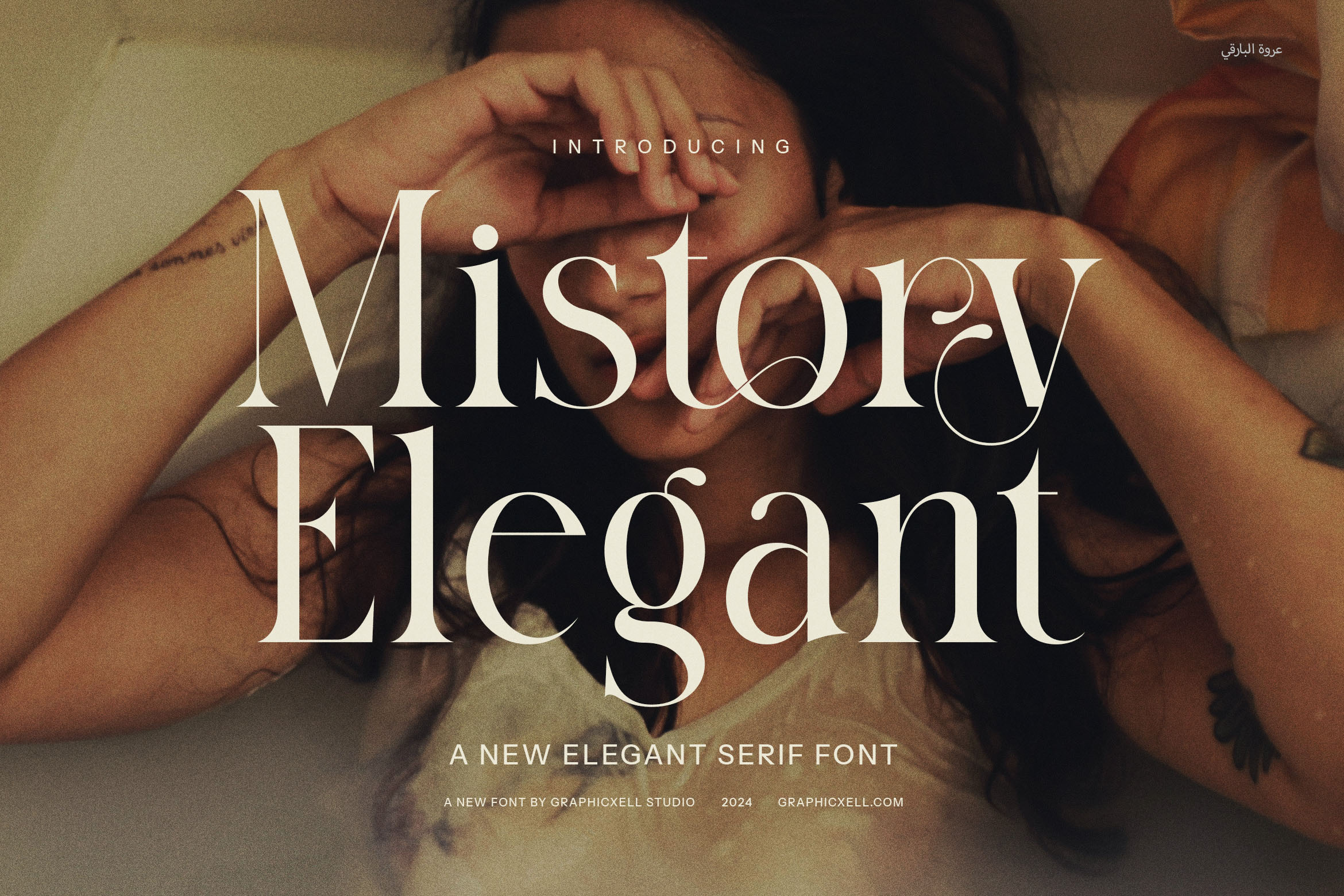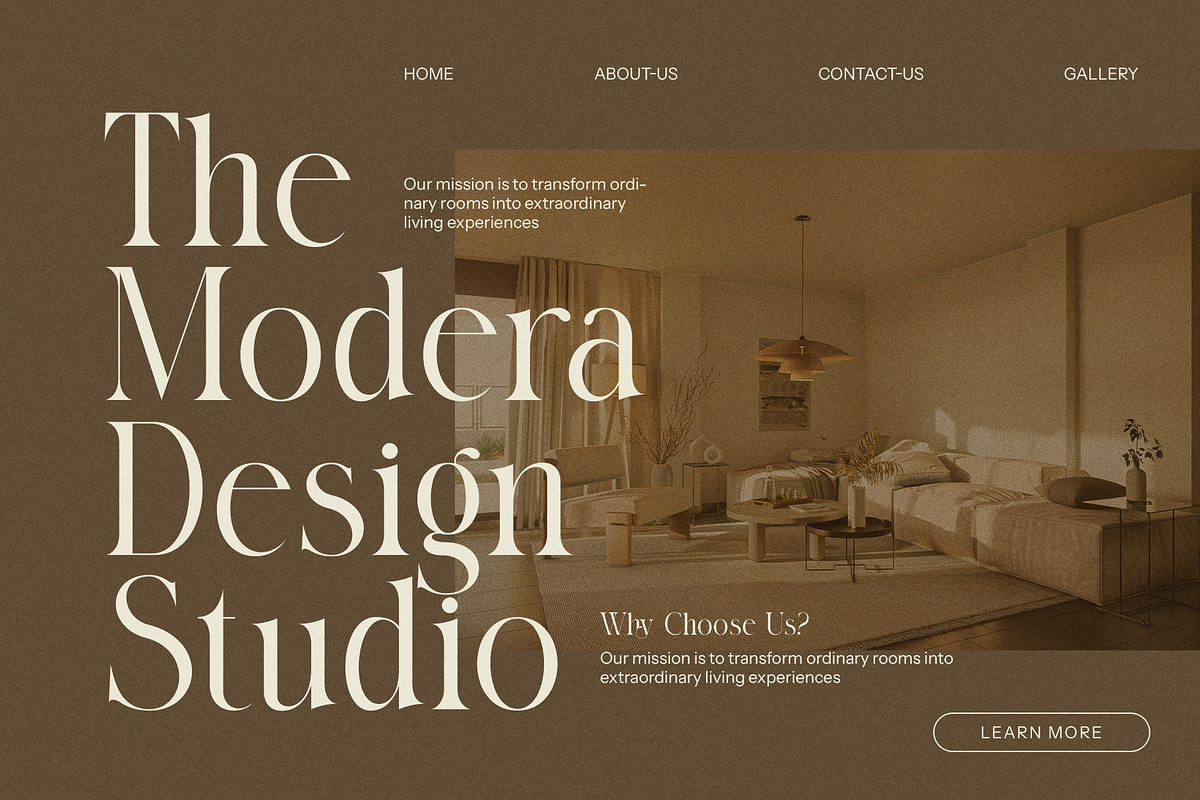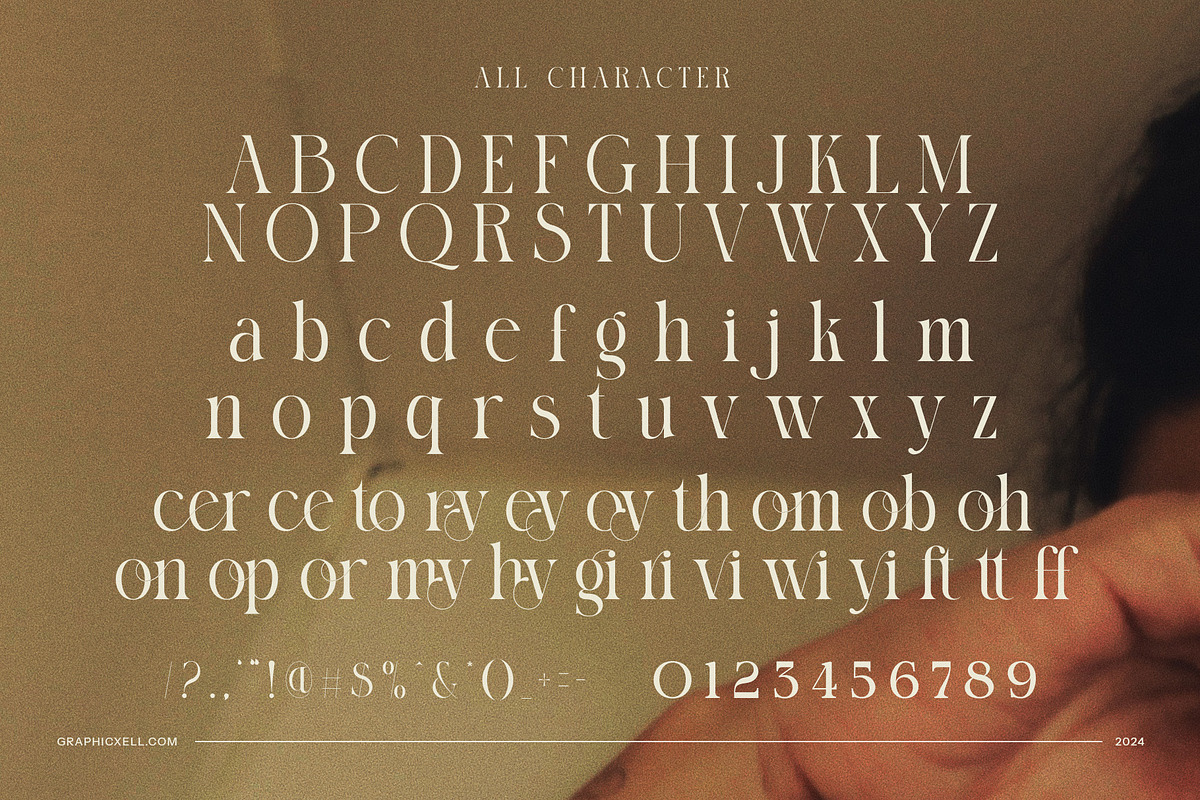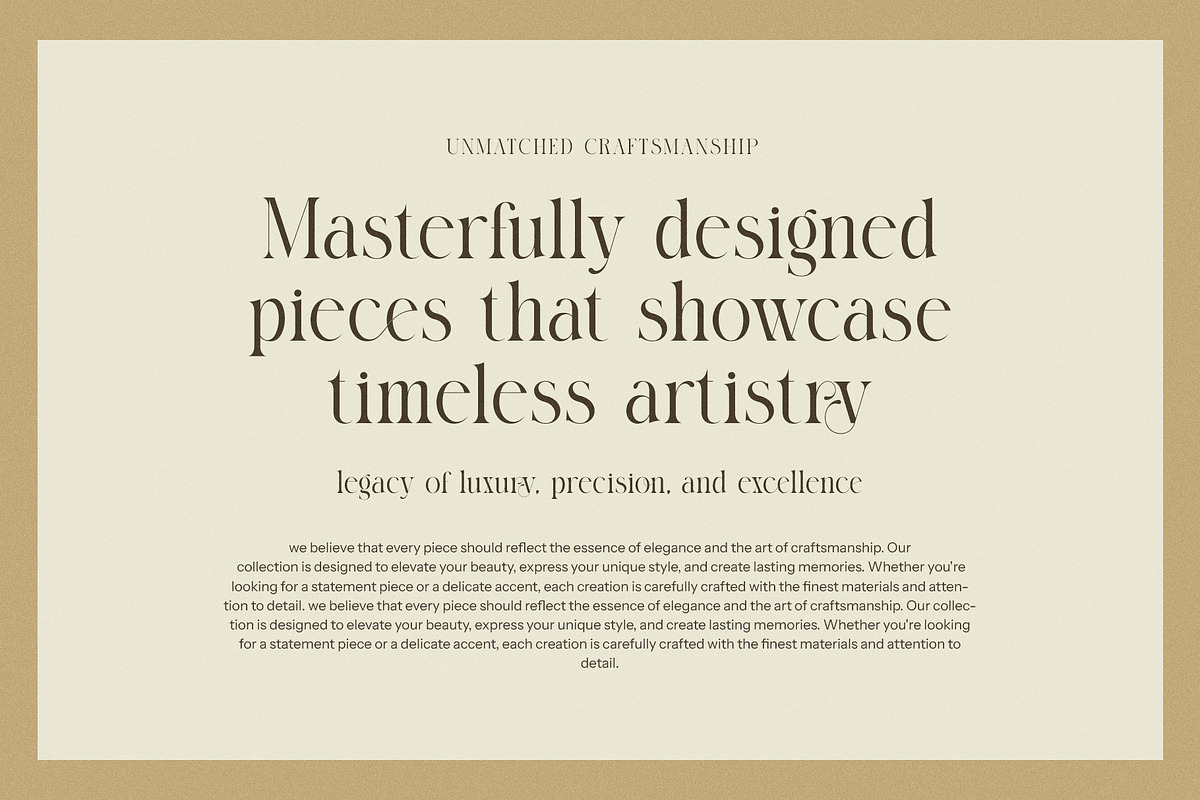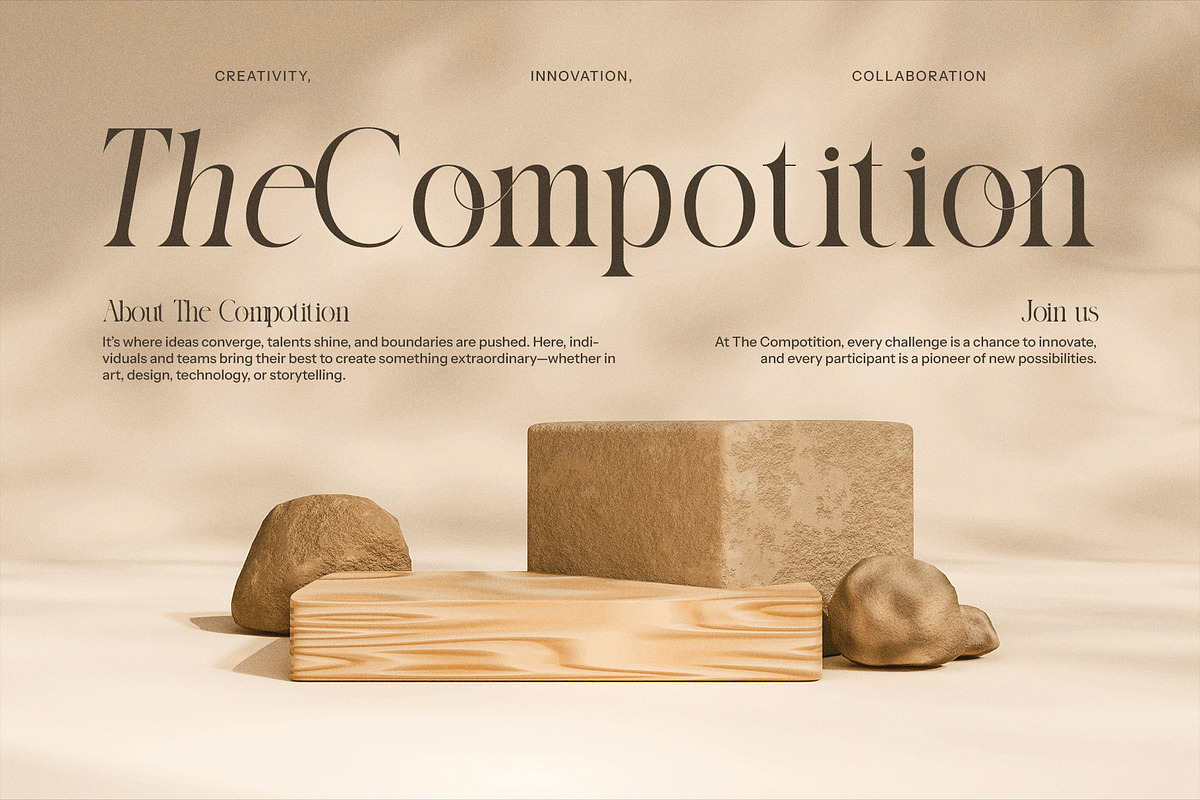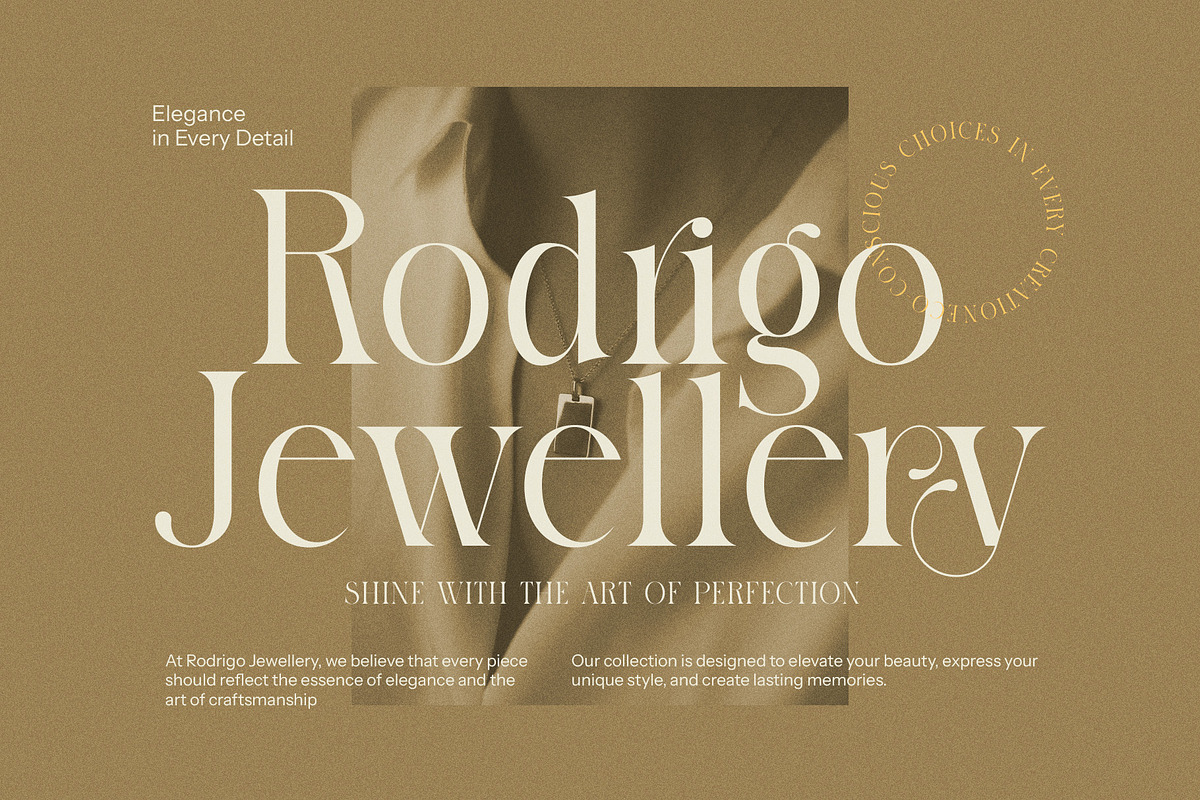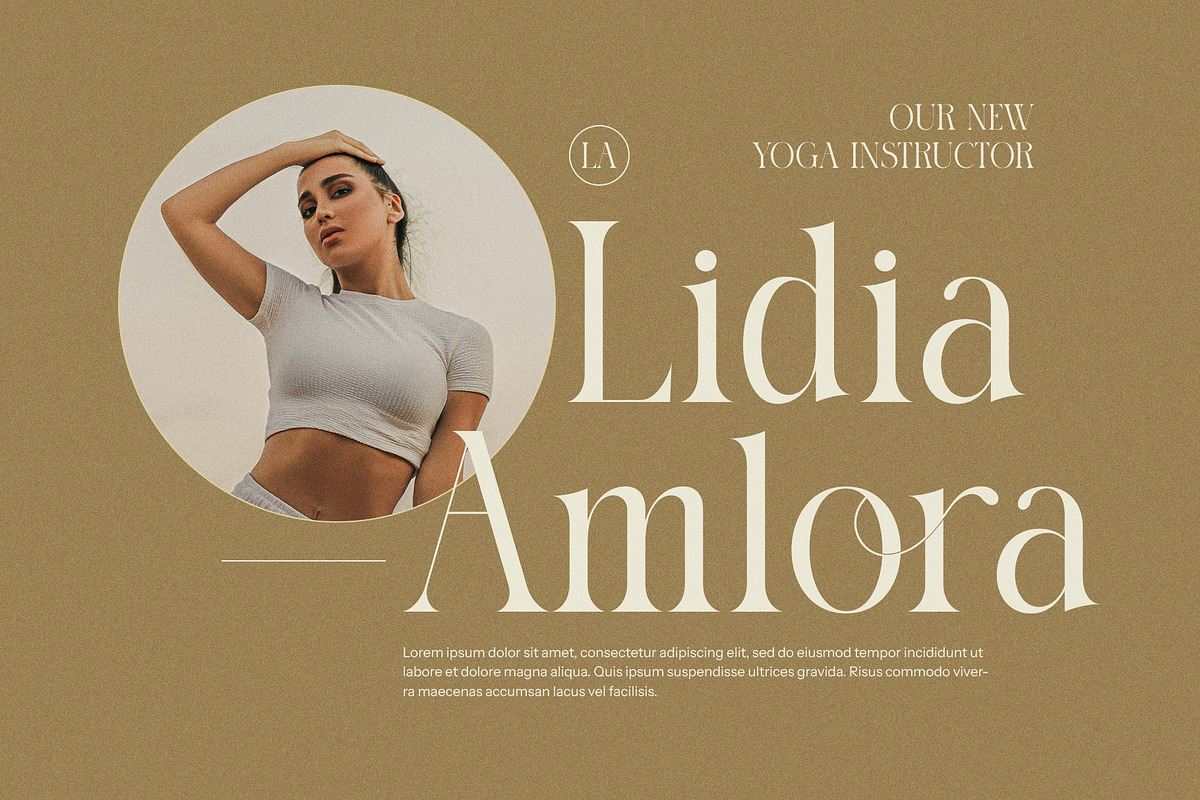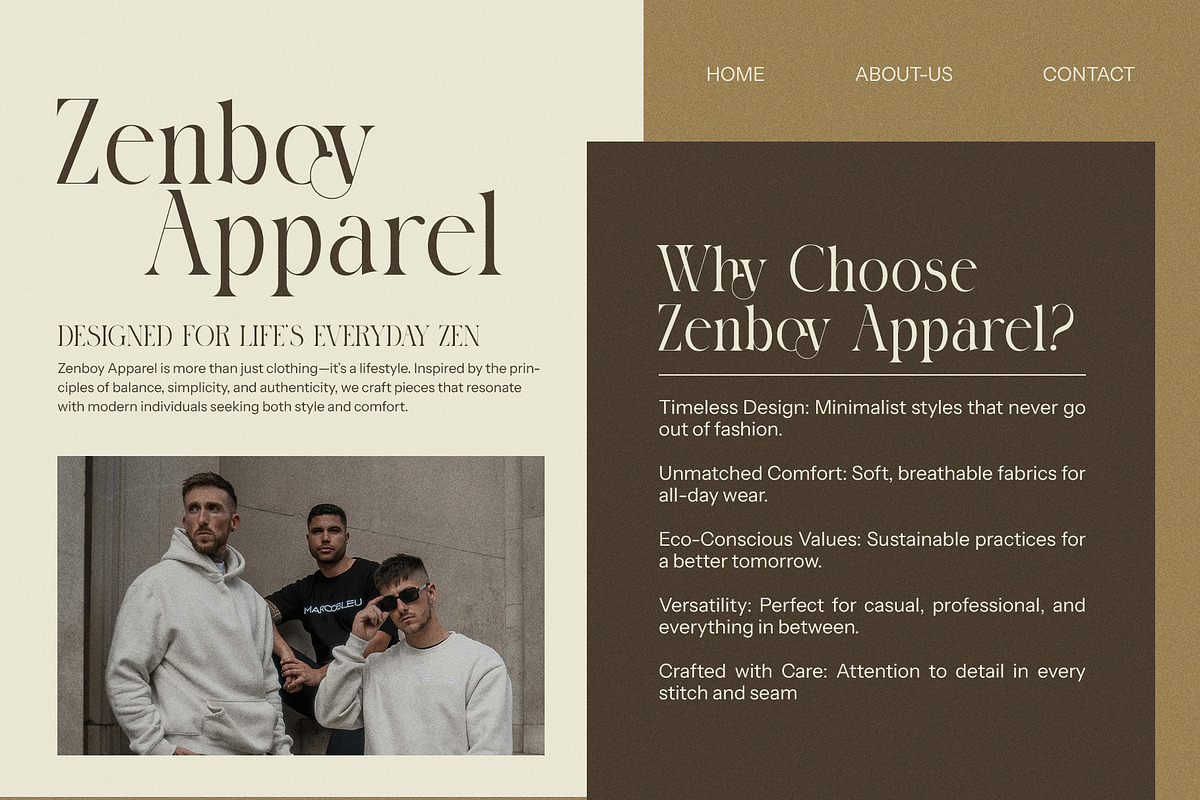
Mistory Elegant Serif Font
Mistory Elegant Serif Font is a refined typeface that seamlessly blends modern sophistication with classic design elements. This font is crafted to bring a touch of elegance and uniqueness to any project, making it an excellent choice for designers who aim to convey a sense of luxury and refinement. With its well-defined serifs and graceful curves, Mistory captures attention and delivers a sense of timeless beauty.
What sets Mistory apart is its beautifully designed ligatures and alternates, offering a range of creative possibilities. These features allow designers to experiment with different looks and feel, giving each project a personalized and distinctive flair. Whether it’s a striking logo, an engaging website, or an upscale magazine layout, Mistory adds a layer of sophistication and visual interest.
Ideal for high-end branding and editorial design, Mistory’s versatile character makes it perfect for luxury boutiques, gourmet food packaging, elegant product advertisements, and more. Its carefully balanced proportions ensure readability, making it suitable for both print and digital media. This makes Mistory a valuable asset for projects that require a polished and professional aesthetic.
Mistory Elegant Serif Font embodies a perfect blend of style and functionality. Its modern elegance and classic charm make it a standout choice for designers looking to create visually compelling and memorable works. Whether used for bold headlines or subtle body text, Mistory delivers a refined and cohesive look that resonates with sophisticated audiences, elevating any creative endeavor with its graceful presence.